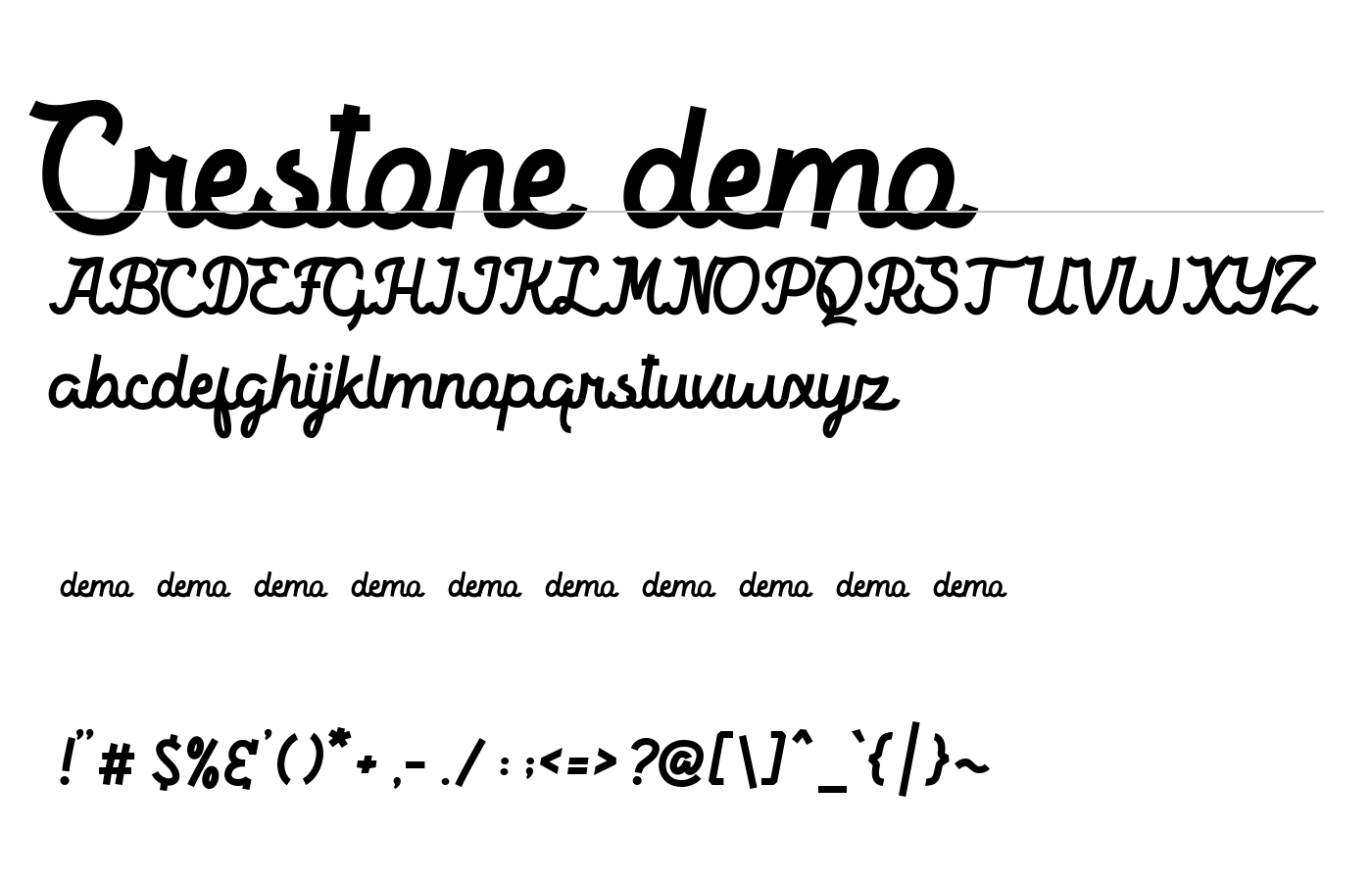
Crestone is a playful and lively script font with a bold weight and a slightly condensed width, featuring connected letterforms that create a smooth, rhythmic flow. Its rounded strokes and quirky details give it a friendly, approachable personality, making it ideal for casual branding, logos, and creative projects that want to feel warm and inviting. This font works well in headlines and display uses where a touch of charm and character is desired without sacrificing legibility.
Crestone Font